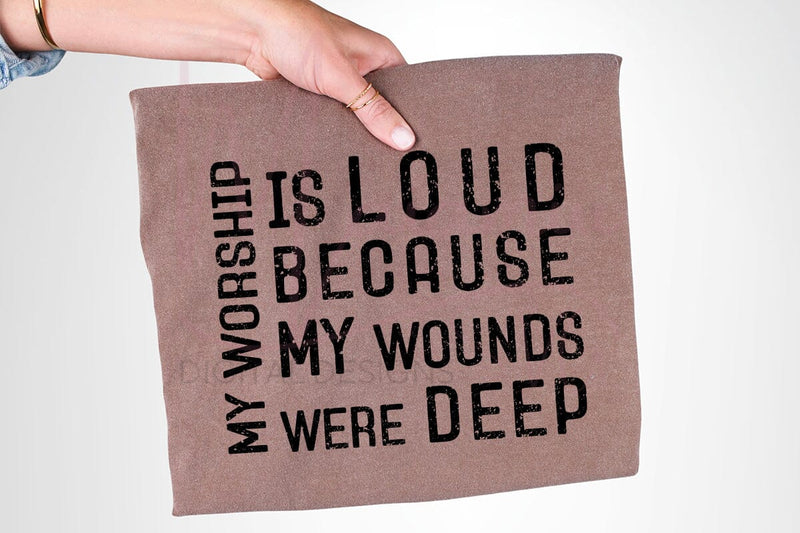
Express your faith and gratitude through this powerful “My Worship Is Loud Because My Wounds Were Deep” SVG design — a bold reminder that healing and praise go hand in hand. Perfect for Christian shirts, church merch, mugs, tote bags, wall art, or gifts that share your testimony of faith. The elegant typography and emotional message make this SVG ideal for spiritual creatives and worship lovers. Compatible with Cricut, Silhouette, and all major cutting machines, this file comes ready in SVG, PNG, and DXF formats for effortless crafting and printing.